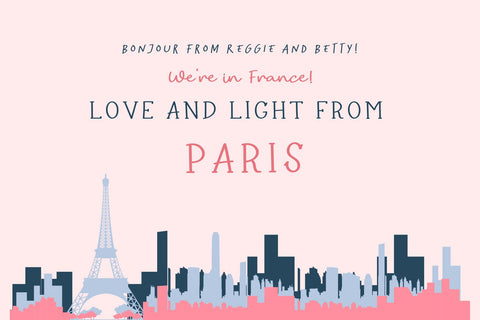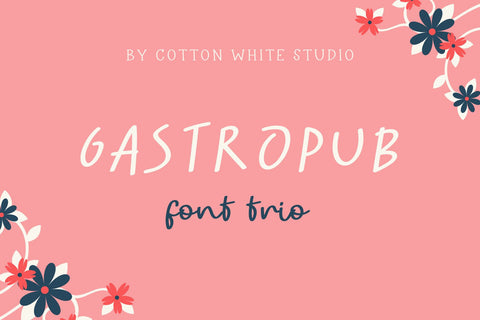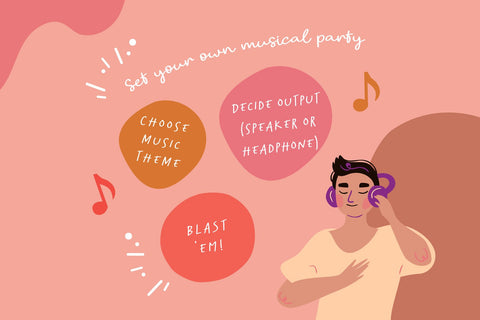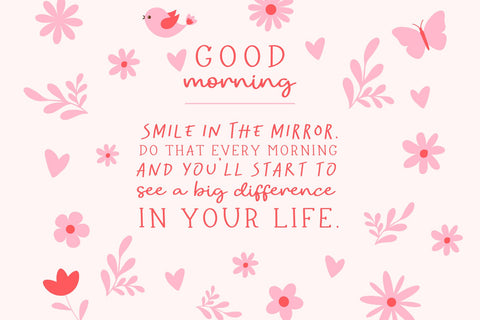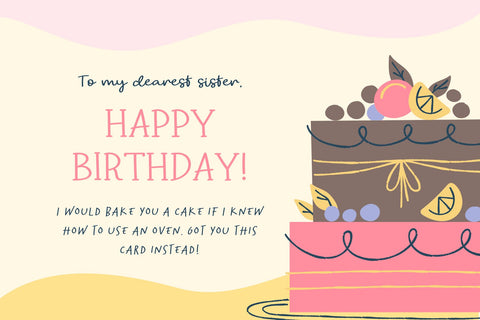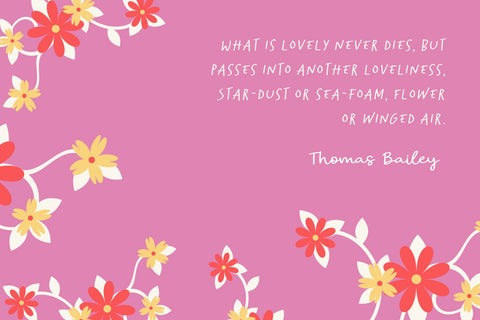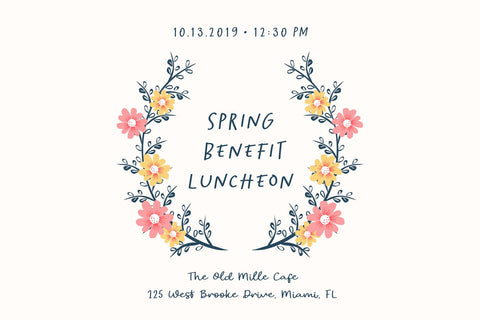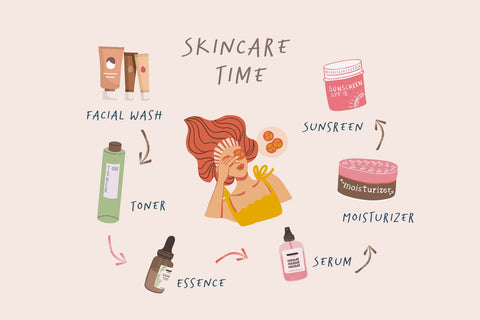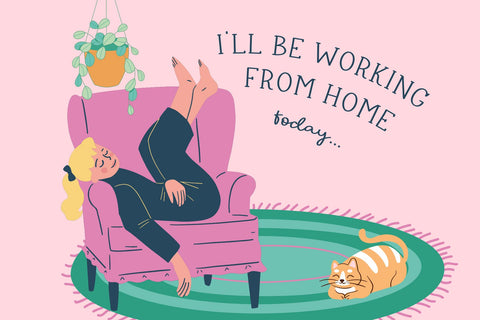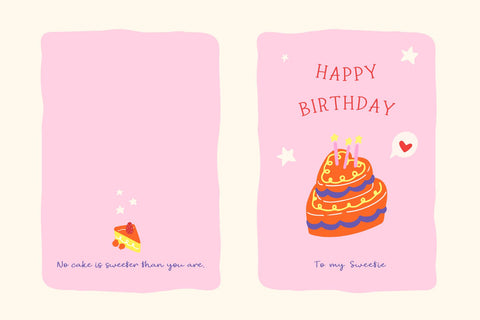
Gastropub Font Trio
Introducing a delightful and endearing hand-lettered font trio designed to bring a touch of charm to any project. This perfect triple is ideal for creating a casual and inviting atmosphere in various applications, including greeting cards, illustrations, quotes, quaint branding, book covers, children’s books, packaging, and countless other creative endeavors. Let your imagination run wild as you explore the endless possibilities that await with this delightful and whimsical typeface combination.